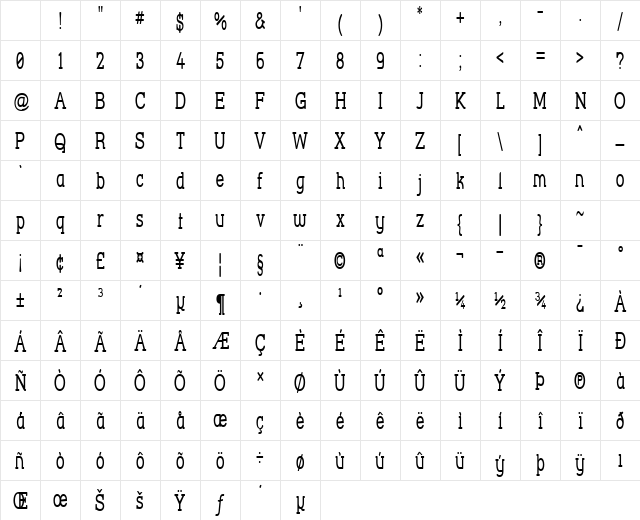
Complete Street Corner Slab Narrow Regular glyph index. Displaying only characters natively supported by Street Corner Slab Narrow Regular font.
Street Corner Slab Narrow features prominent, blocky serifs that give it a confident, grounded presence - equally at home in editorial settings and bold branding work. Its narrow stance lets it pack a punch even in space-constrained designs.
Pro Tip: Use Street Corner Slab Narrow for headlines and subheadings where its slab serifs can make an impression. It also holds up well in mid-size body copy thanks to its sturdy construction.